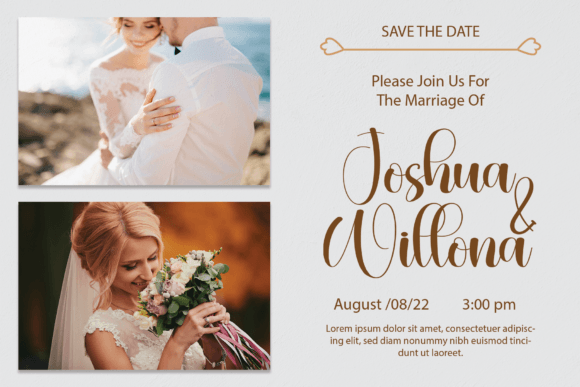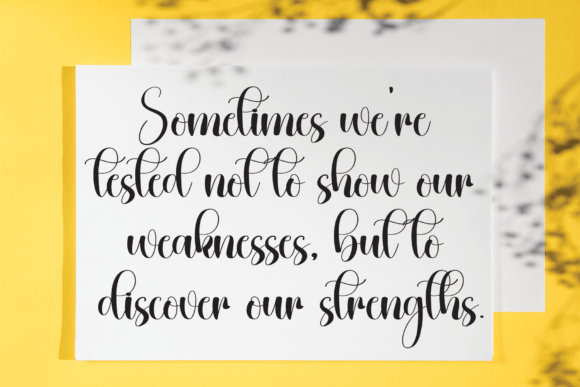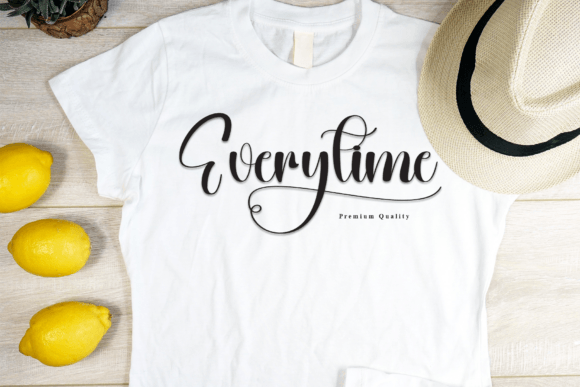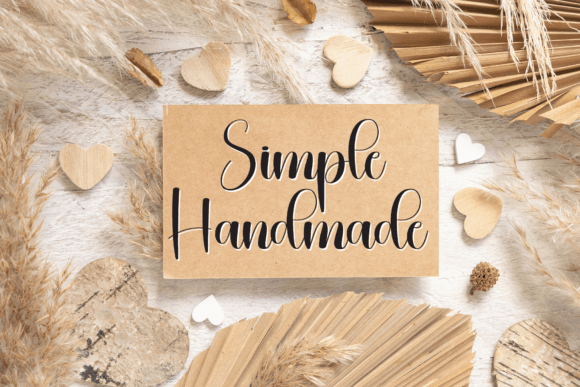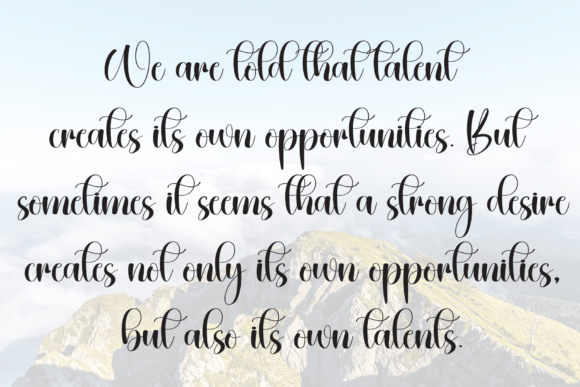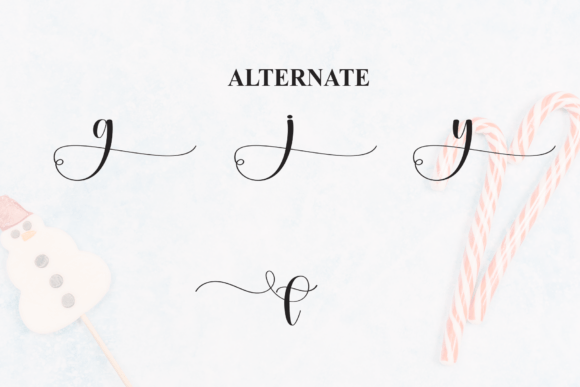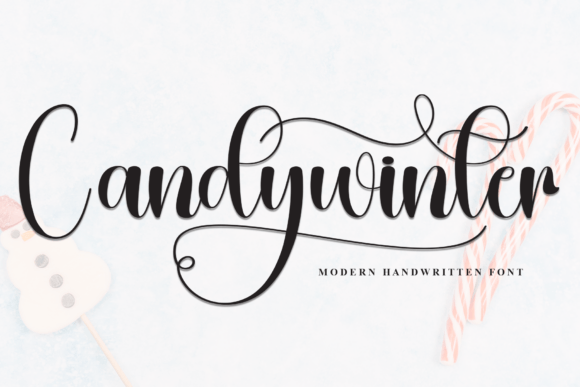
Candywinter Font: Elevate Your Designs with a Stylish and Nostalgic Touch
In the world of typography, fonts play a crucial role in making or breaking a design. A well-chosen font can instantly elevate your project, adding a touch of personality and style that sets it apart from the rest. If you’re on the hunt for a font that exudes confidence, dynamism, and a dash of nostalgia, look no further than Candywinter Font. In this article, we’ll dive into the world of Candywinter, exploring its features, benefits, and uses, and why it’s a must-have for designers and crafters alike.
What is Candywinter Font?
Candywinter Font is a gorgeous and bold handwritten font, carefully crafted to give your headlines and logotype projects a stylish touch. With its strong, confident, and dynamic appearance, this font is perfect for designers looking to add a dash of personality to their work. Whether you’re creating a logo, heading, or title, Candywinter Font is sure to make a statement.
Key Features of Candywinter Font
So, what makes Candywinter Font so special? Here are just a few of its key features:
- Bold and Handwritten: Candywinter Font boasts a bold, handwritten style that’s perfect for making a statement.
- Strong and Confident: With its dynamic appearance, this font exudes confidence and strength, making it ideal for headlines and logotypes.
- Nostalgic Character: Candywinter Font has a distinctly nostalgic feel, adding a touch of warmth and personality to your designs.
- High-Quality Design: Crafted with precision and attention to detail, this font is of exceptionally high quality, ensuring crisp and clear results.
Benefits of Using Candywinter Font
So, why should you choose Candywinter Font for your next project? Here are just a few benefits of using this amazing font:
- Adds Personality to Your Designs: With its unique and stylish appearance, Candywinter Font is the perfect way to add a dash of personality to your work.
- Perfect for Headlines and Logotypes: This font is specifically designed for headlines and logotypes, making it an excellent choice for branding and advertising projects.
- Compatible with a Range of Designs: Whether you’re creating a modern, minimalist design or a more traditional, ornate piece, Candywinter Font is versatile enough to complement a range of styles.
- Easy to Read: Despite its bold and dynamic appearance, Candywinter Font is surprisingly easy to read, making it perfect for use in a variety of contexts.
Who Can Benefit from Candywinter Font?
Candywinter Font is a versatile font that’s perfect for a range of designers and crafters, including:
- Graphic Designers: Whether you’re creating logos, brochures, or business cards, Candywinter Font is a great addition to your font library.
- Advertising Agencies: This font is perfect for creating eye-catching headlines and logotypes that grab attention.
- Crafters and Makers: If you’re creating handmade products, such as signs, banners, or packaging, Candywinter Font is a great way to add a personal touch.
- Digital Designers: Whether you’re creating social media graphics, website headers, or email newsletters, this font is a great choice.
In conclusion, Candywinter Font is an exceptional handwritten font that’s perfect for designers and crafters looking to add a stylish and nostalgic touch to their work. With its bold, confident, and dynamic appearance, this font is sure to make a statement. Whether you’re creating headlines, logotypes, or other designs, Candywinter Font is a versatile and high-quality choice that’s sure to elevate your projects.